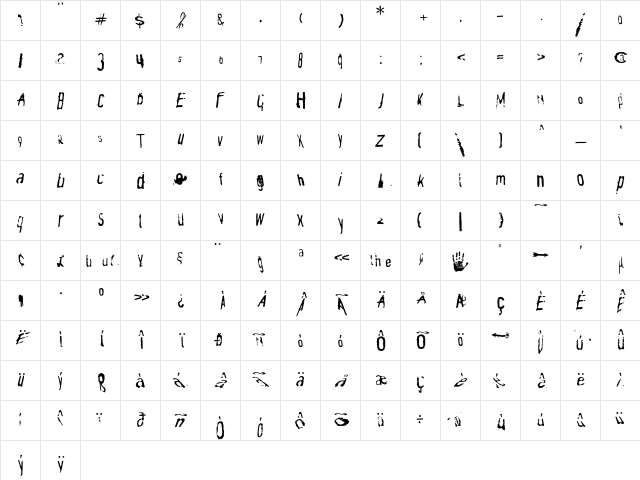
Grenoway Regular Free Font
Grenoway Regular
Design Context for Grenoway
Grenoway is a composed and adaptable typeface that performs quietly and consistently across a wide range of design contexts.